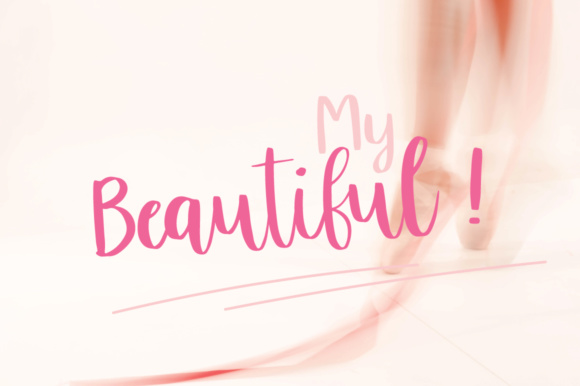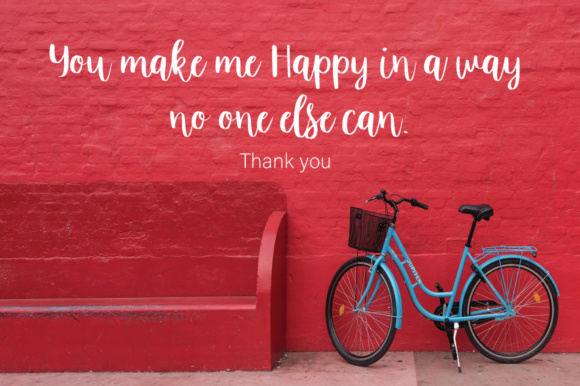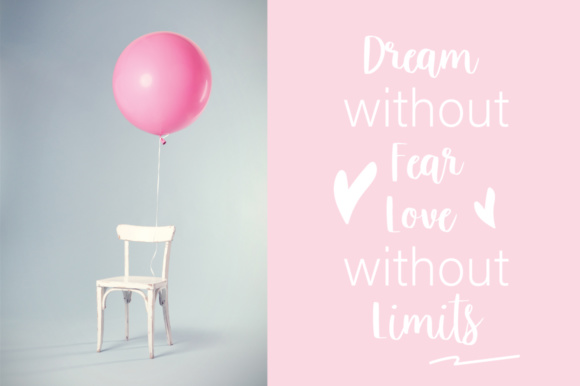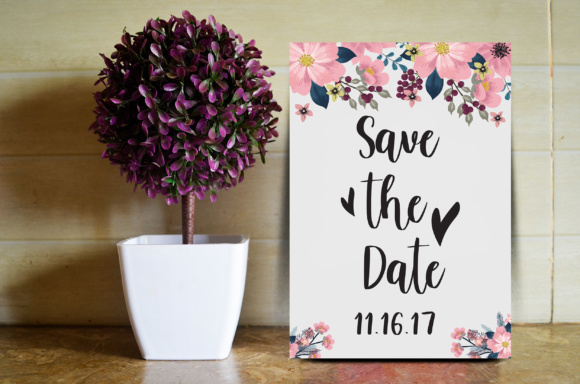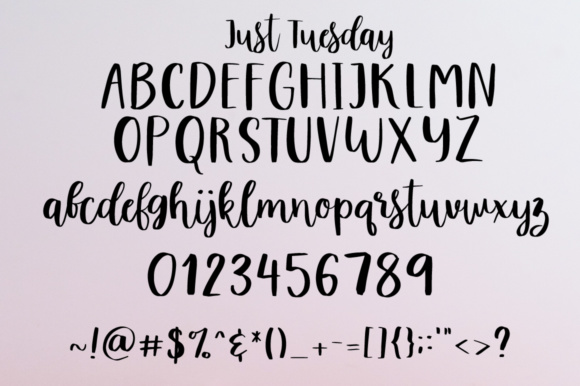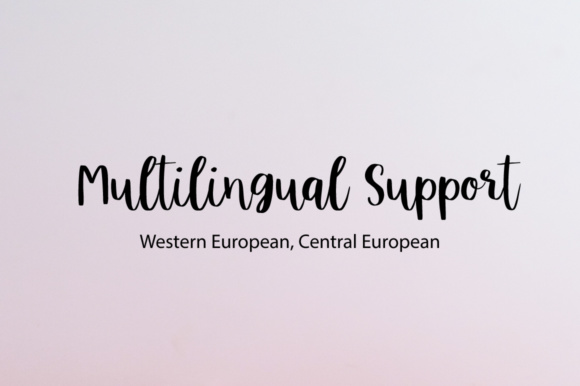
Just Tuesday Font
About Just Tuesday Font
Just Tuesday is a casual handwritten script font. It has a good readability which makes it perfect for invitations, blogs, logos, book covers, and much more!